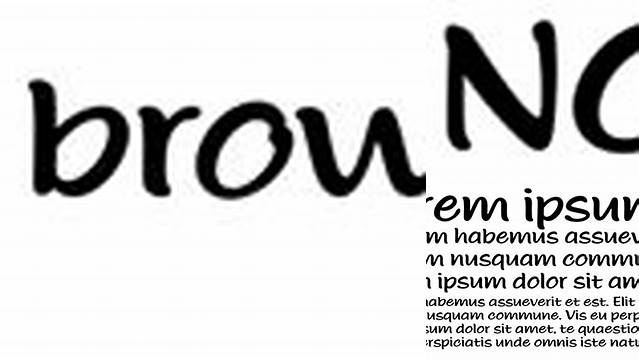
Hey everyone! Let's dive into the awesome world of fonts, specifically the Morris Freestyle Std Regular font. This font is a real gem, and the best part? You can snag a free download! In this article, we'll explore everything you need to know about this typeface, from its characteristics to where you can find it. So, buckle up, and let's get started!
What is Morris Freestyle Std Regular? Exploring the Font's Essence
Alright, first things first: What exactly is the Morris Freestyle Std Regular font? Think of it as a stylish, versatile typeface that can add a unique flair to any project. It's known for its clean lines and modern feel, making it a great choice for various design needs. This font falls into the category of display fonts, which means it's excellent for headlines, titles, and any text that needs to grab attention. Its readability is top-notch, ensuring your message gets across clearly. The Morris Freestyle Std Regular font is not just about looks; it's about functionality. It's designed to be easily read, even at different sizes, making it a flexible option for both print and digital designs. You'll often find it used in branding materials, websites, and even printed documents where a touch of modern elegance is desired. The font’s inherent design lends itself well to a variety of applications, from sleek logos to eye-catching website banners. When using this font, designers can create a cohesive and professional look. Its consistent style across different characters contributes to a polished visual presentation. It provides an opportunity to showcase the creativity and add a unique touch to your projects. You will find it a valuable addition to your font collection, giving you the tools to create visually appealing and effective designs. It is a go-to choice for those who want to make a statement. Its aesthetic appeal adds a professional feel to any project. The beauty of this font lies in its simplicity and effectiveness. It’s a brilliant tool for anyone looking to make a visual impact. It stands out due to its ability to communicate the message clearly and aesthetically. It will boost your projects’ overall look and feel. This font is a smart addition to your design arsenal, providing both style and readability. This font is your secret weapon for creating designs that not only look good but also communicate effectively. It's a powerhouse of style and clarity, ready to transform your designs.